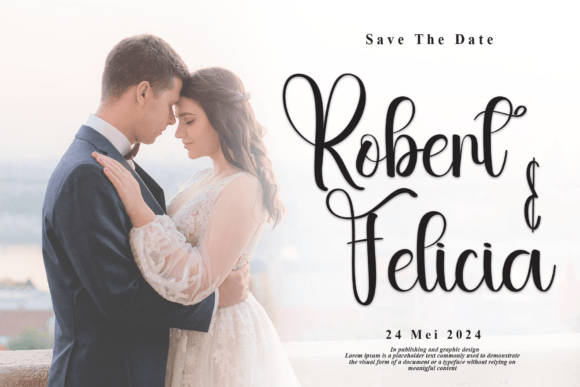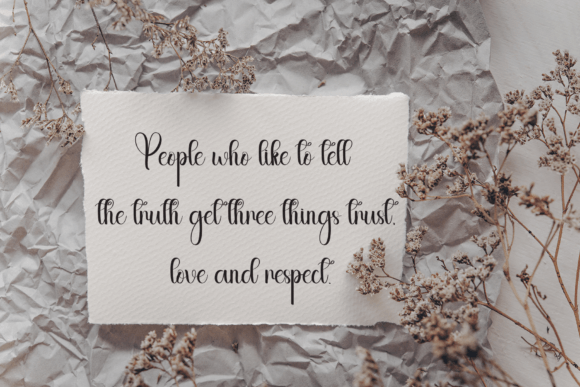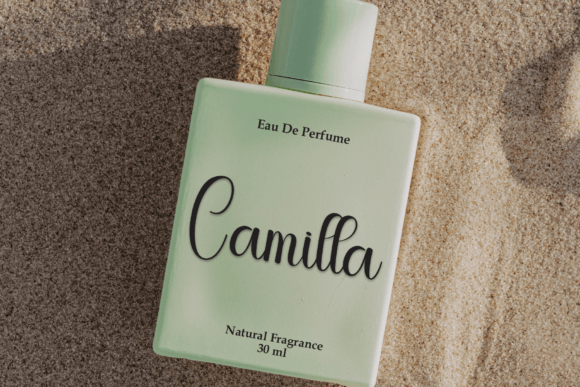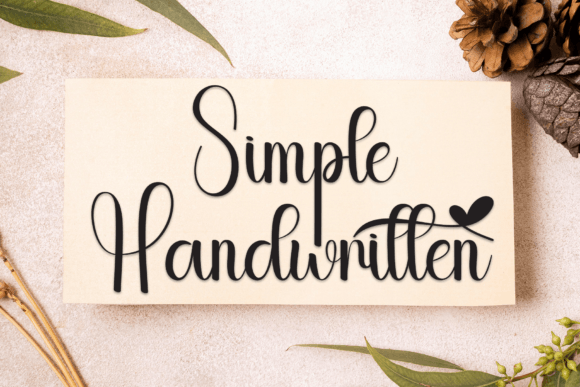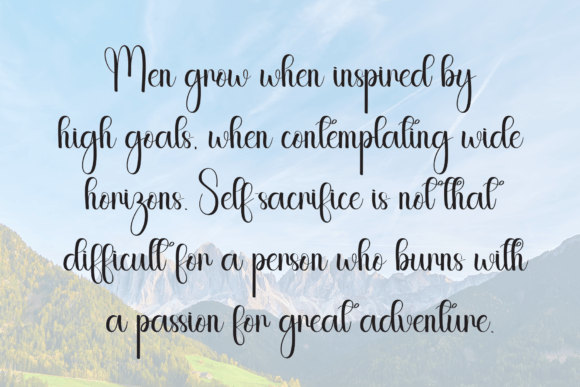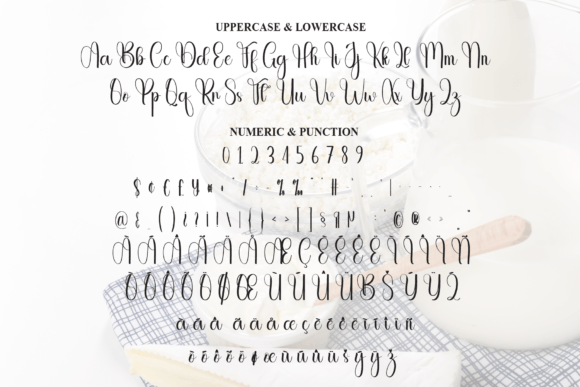
Discover the Charm of Butter Font: Adding Joy and Warmth to Your Designs
In the world of typography, fonts play a crucial role in conveying emotions and setting the tone for a design. If you’re looking for a font that embodies joy, warmth, and a touch of whimsy, look no further than the Butter Font. This handcrafted font is perfect for designers and crafters seeking to add a personal touch to their projects, making it an ideal choice for wedding invitations, greeting cards, and other designs that require a sprinkle of fun.
The Unique Characteristics of Butter Font
Butter Font is a delightful typography that boasts an adorable and entertaining essence, transforming the usual into something truly extraordinary. Its handcrafted nature gives it a unique, organic feel that sets it apart from more traditional fonts. The font’s design is characterized by its playful curves, friendly demeanor, and approachable vibe, making it perfect for designs that aim to create a connection with the reader.
Wedding invitations and greeting cards are special occasions that call for a font that can convey warmth, love, and joy. Butter Font is an impeccable choice for these types of designs, as it adds a touch of whimsy and playfulness to the text. Its charming and delightful nature makes it perfect for:
- Wedding invitations: Make your wedding invitations stand out with a font that exudes joy and happiness.
- Greeting cards: Add a personal touch to your greeting cards with a font that’s friendly, approachable, and fun.
- Party invitations: Create eye-catching party invitations that set the tone for a fun and festive celebration.
Beyond Wedding Invitations and Greeting Cards: Other Design Applications
While Butter Font is perfect for wedding invitations and greeting cards, its versatility makes it suitable for a wide range of design applications. Consider using it for:
- Social media graphics: Add a touch of personality to your social media graphics with a font that’s fun and engaging.
- Branding: Use Butter Font to create a friendly and approachable brand identity that resonates with your audience.
- Packaging design: Make your packaging stand out with a font that’s playful, whimsical, and eye-catching.
Why Designers and Crafters Love Butter Font
Designers and crafters love Butter Font for its unique ability to add a personal touch to their designs. Here are some reasons why:
- Easy to read: Despite its playful nature, Butter Font is easy to read, making it perfect for designs that require a clear and concise message.
- Versatile: Butter Font can be used for a wide range of design applications, from digital designs to print materials.
- Customizable: As a handcrafted font, Butter Font can be customized to fit your design needs, making it a great choice for designers who want to add a personal touch to their work.
In conclusion, Butter Font is a delightful typography that embodies joy, warmth, and a touch of whimsy. Its handcrafted nature, playful curves, and friendly demeanor make it perfect for designers and crafters seeking to add a personal touch to their designs. Whether you’re creating wedding invitations, greeting cards, or other designs that require a sprinkle of fun, Butter Font is an impeccable choice. So why not discover the charm of Butter Font and add a touch of joy and warmth to your designs?
- Butter Font is a handcrafted font that embodies joy, warmth, and a touch of whimsy.
- It’s perfect for wedding invitations, greeting cards, and other designs that require a sprinkle of fun.
- Butter Font is versatile and can be used for a wide range of design applications.
- It’s easy to read, customizable, and adds a personal touch to designs.